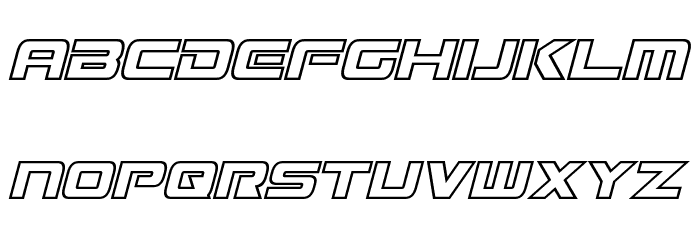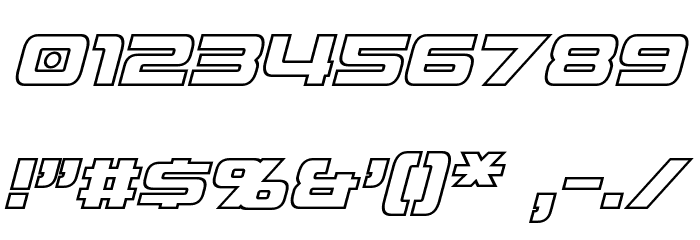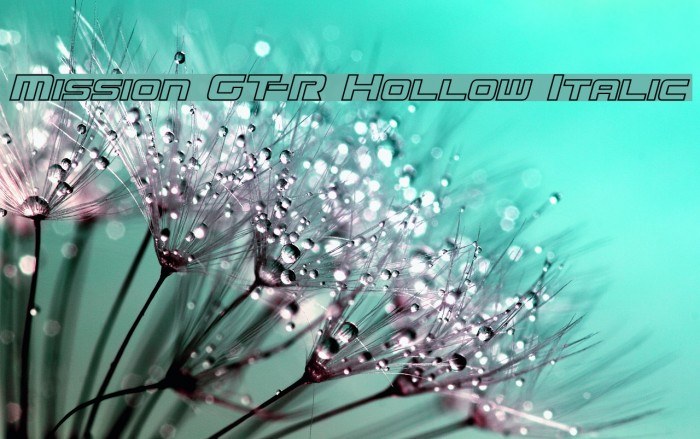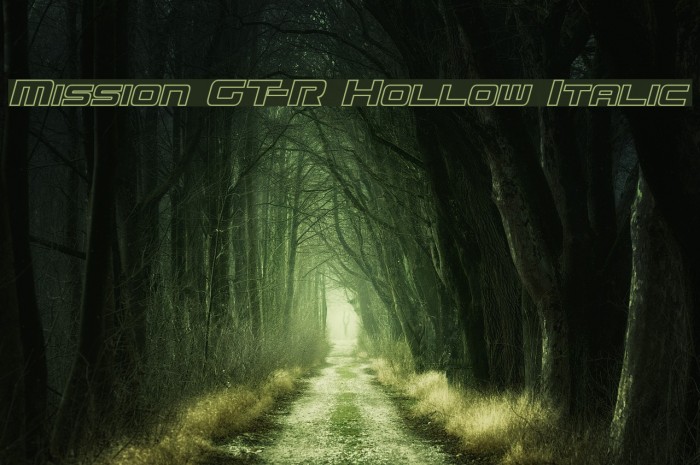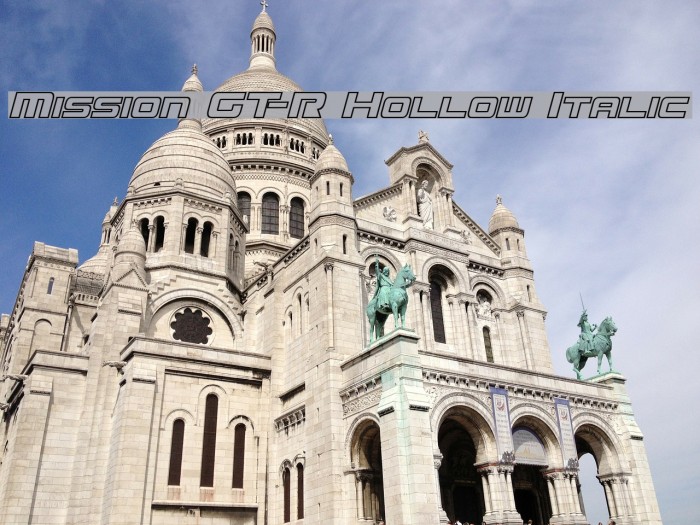
Mission GT-R Hollow Italic Font
This font features a modern, futuristic design with a hollow, outlined style that gives it a unique and striking appearance. The italicized slant adds a dynamic and energetic feel, making it ideal for projects that require a sense of motion or speed. The characters are bold and geometric, with clean lines and sharp angles, contributing to its contemporary aesthetic. The uppercase and lowercase letters maintain a consistent style, while the numerals and special characters complement the overall design. This font is perfect for creating eye-catching headlines, logos, and branding materials that demand attention.
A modern, italicized, hollow font with a futuristic and dynamic style.
- Font: Mission GT-R Hollow Italic
- Proposed Projects: Ideal for use in automotive branding, tech company logos, sports team merchandise, and futuristic-themed posters.